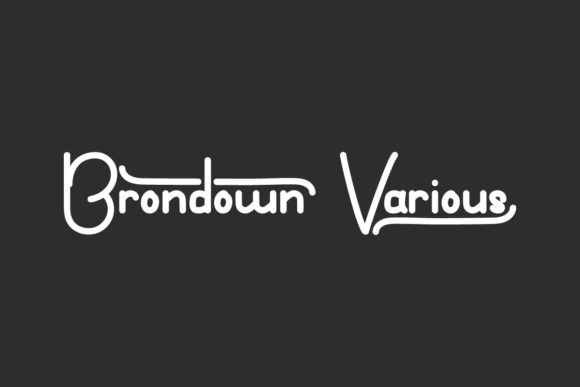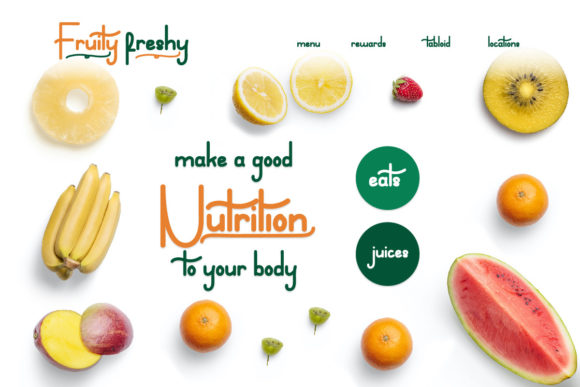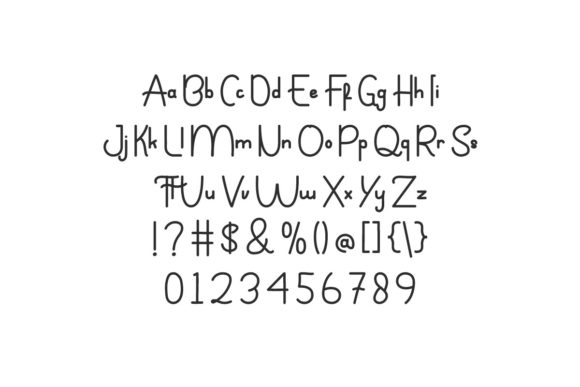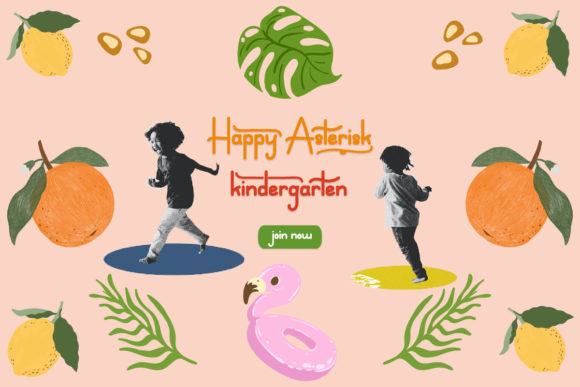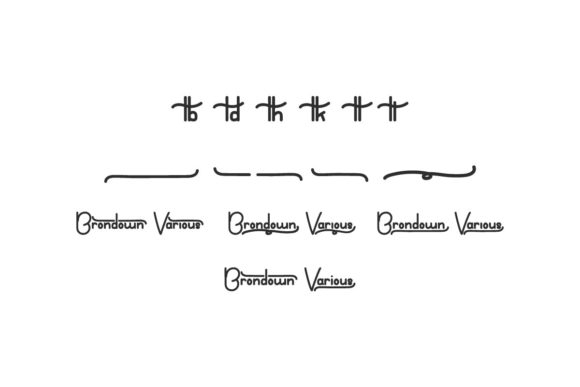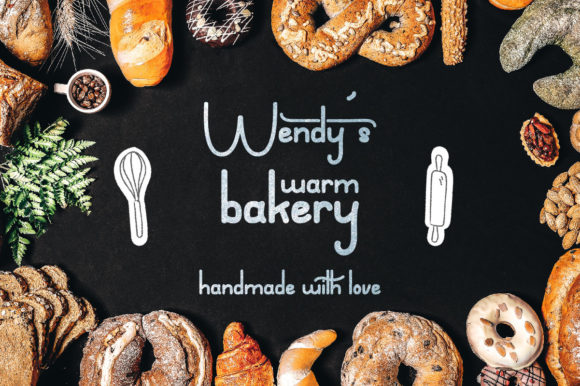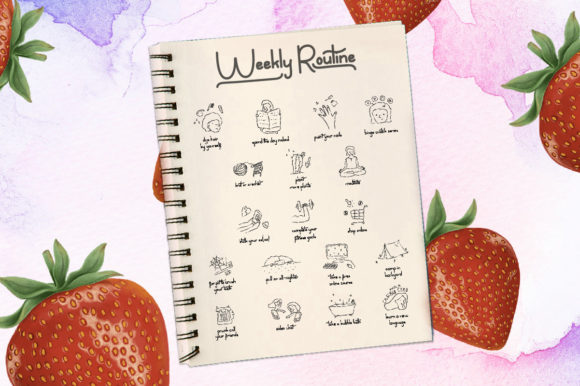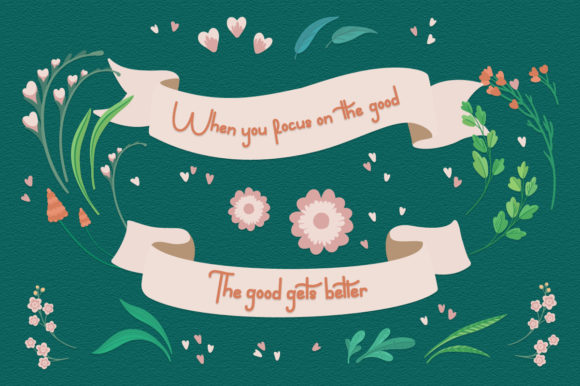
Brondown Various Font
Brondown Various is a delicate and fashionable script font. It is perfect for any branding project such as logos, t-shirt printing, creative products, and more. It will look extraordinary in a variety of contexts.